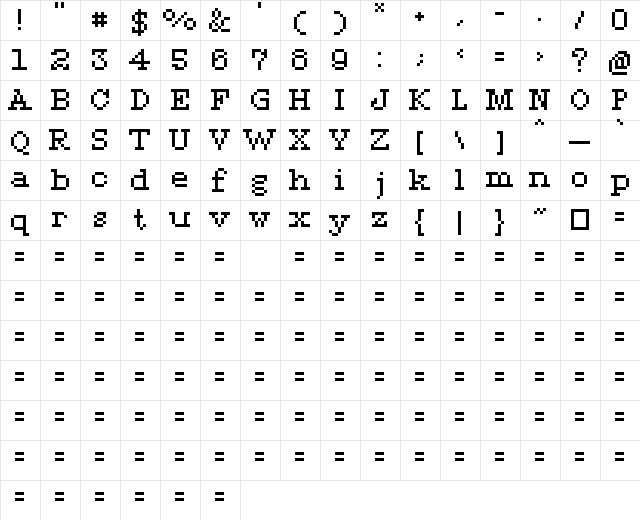
00Tonix Bold
Design Context for 00Tonix Typeface
00Tonix offers clean, dependable letterforms without strong stylistic allegiance, making it a practical choice for designers who need flexibility. Its bold stroke weight gives it real presence on the page.
Pro Tip: Use 00Tonix in both headline and body roles to test its range before committing to a single application.